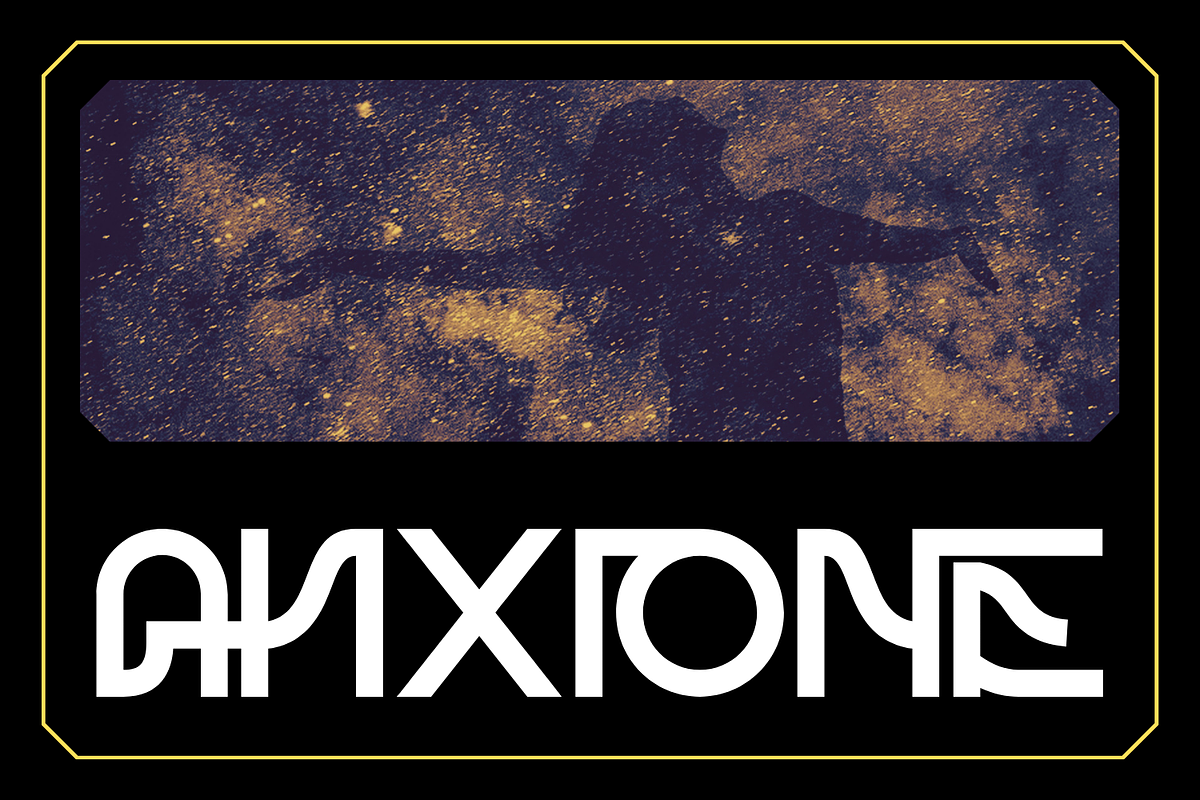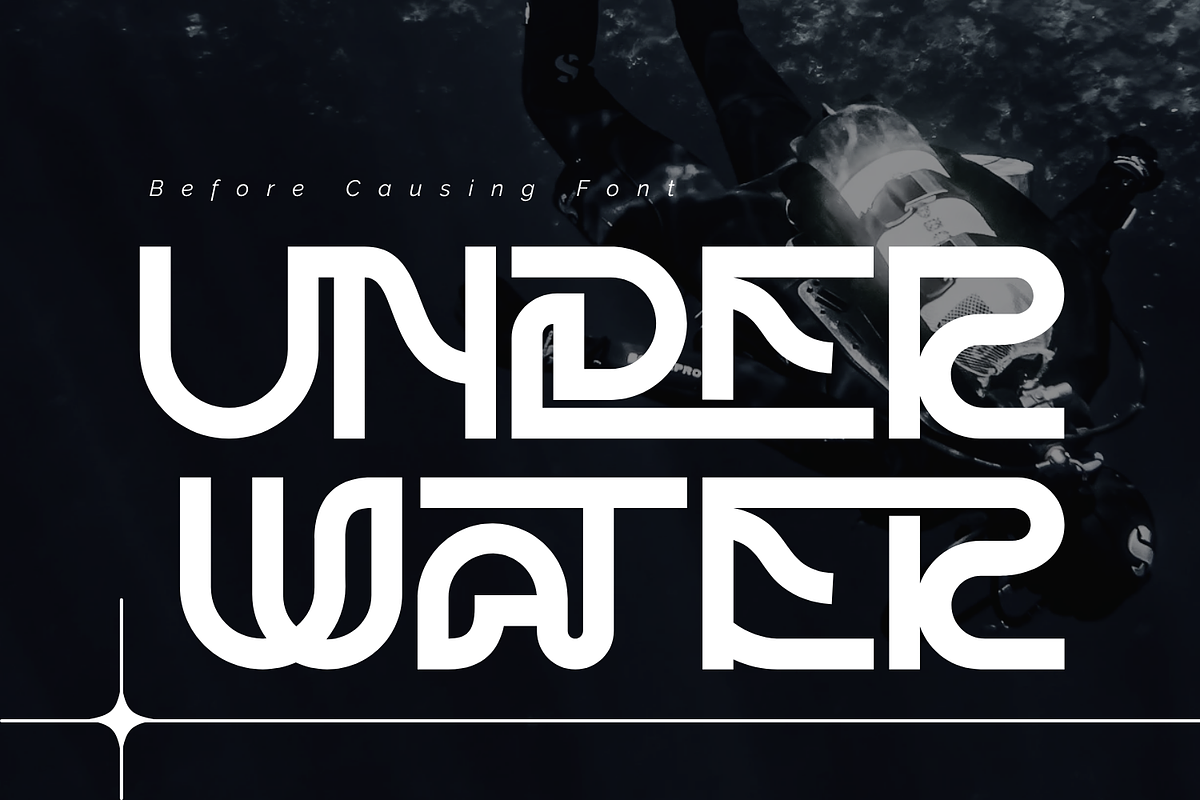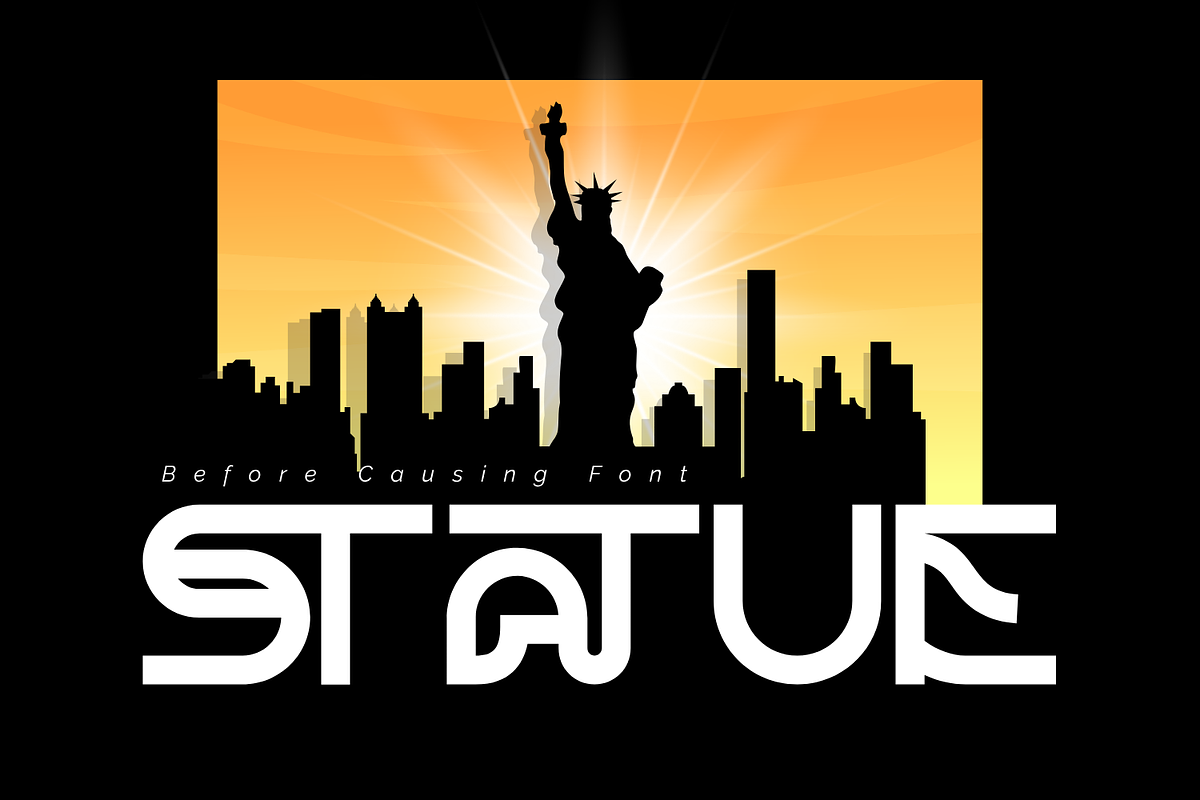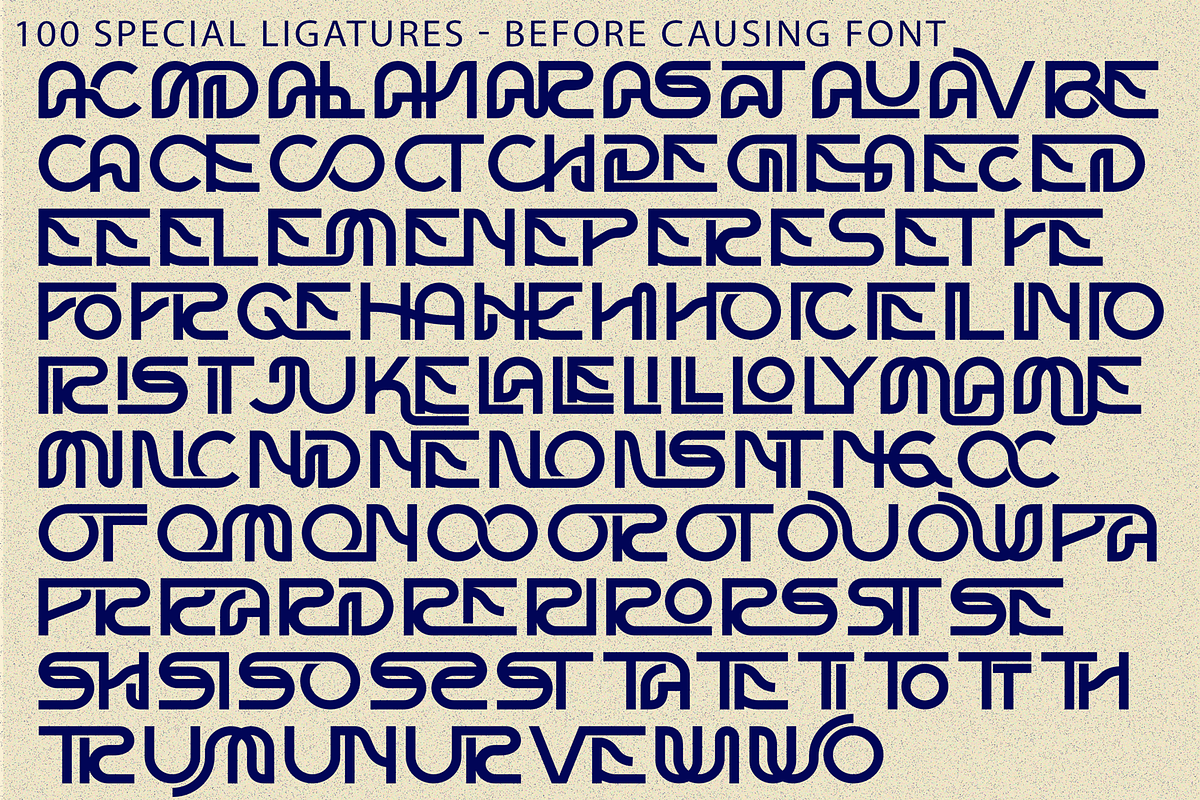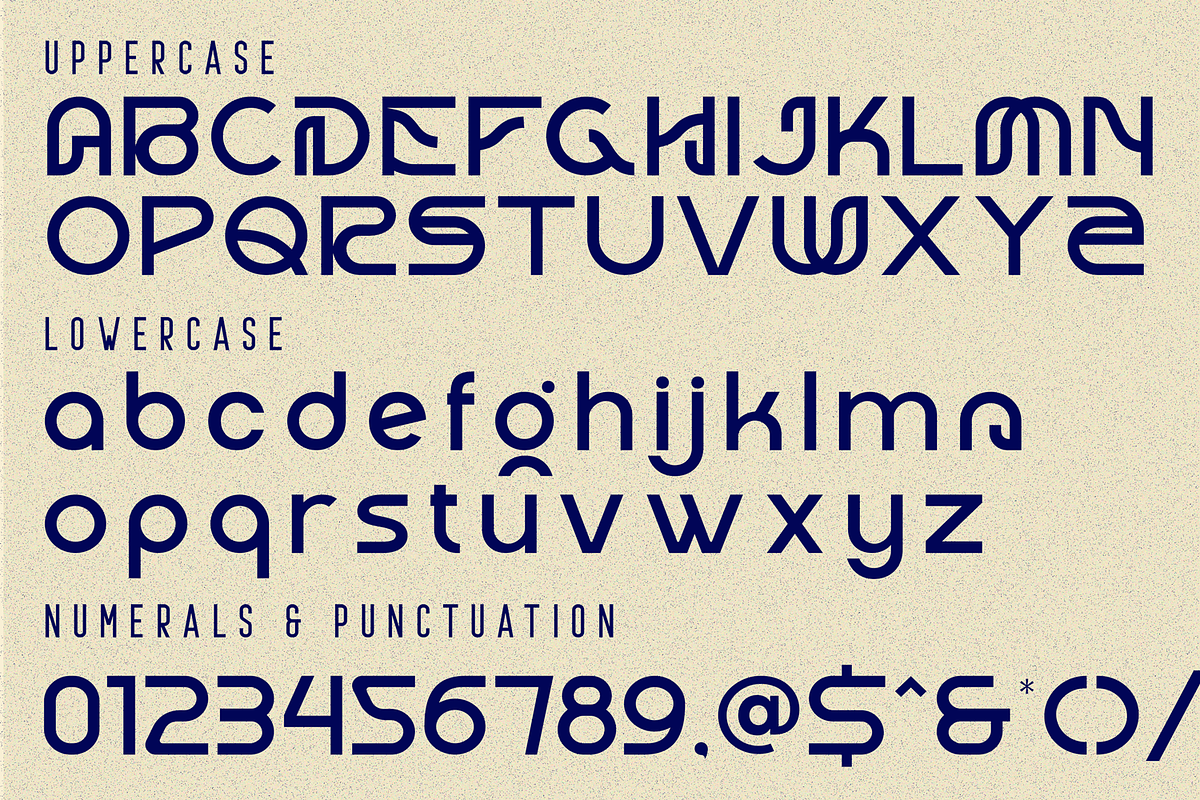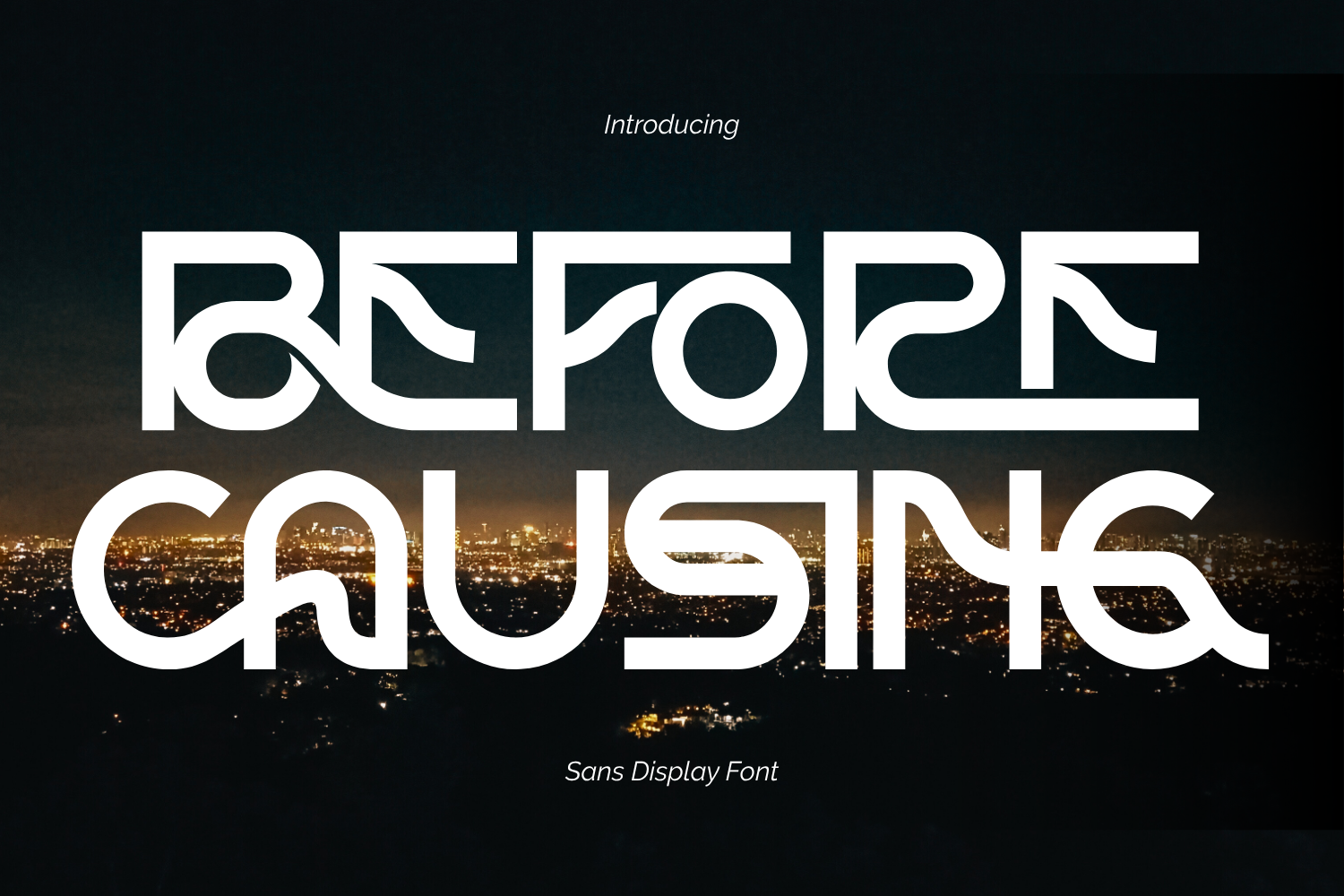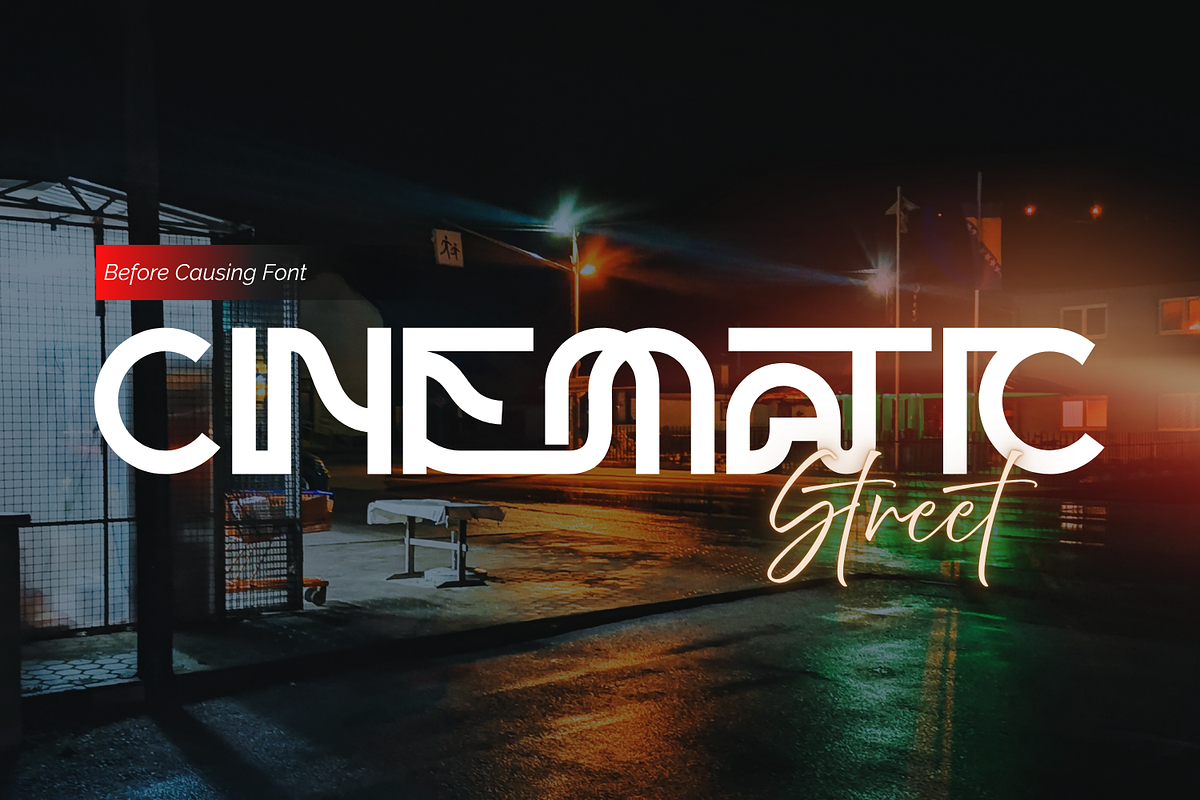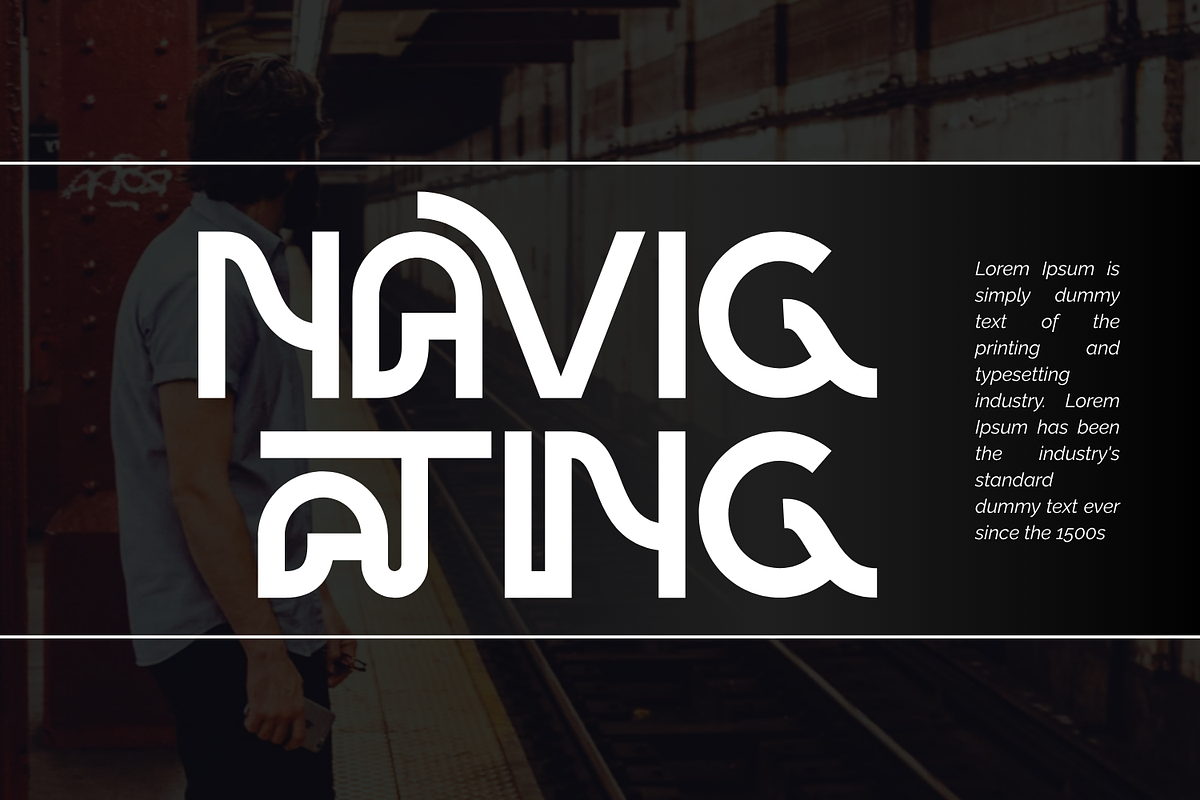
BEFORE CAUSING - GEOMETRIC FONT
BEFORE CAUSING - GEOMETRIC FONT is a futuristic sans-serif display font designed with clean geometry, smooth curves, and sharp technical cuts. Its bold letterforms and connected details create a sleek, high-tech rhythm that feels modern, dynamic, and forward-thinking. Perfect for technology branding, gaming titles, sci-fi posters, digital products, modern logos, UI design, and futuristic visual identities, BEFORE CAUSING brings clarity and strong impact to every composition.
🔤Features:
Uppercase & Lowercase Letters
Around 100 Special Ligatures & Alternates
Accented Characters for multilingual support
🔤About 100 ligatures combined with Stylistic Alternates Font:
AC AD AL AN AR AS AT AU AV BE CA CE CH CO CT DE DI EA EC ED EE EL EM EN EP ER ES ET FE FO FR GE HA HE HI HO IE IC IL IN IO IR IS IT JU KE LA LE LI LL LO LY MA ME MI NC ND NE NG NO NT NS OC OF OM ON OO OP OR OT OU OW PA PR RA RD RE RI RO RS RT SE SH SI SO SS ST TA TE TH TI TO TR TT UM UN UR VE WI WO